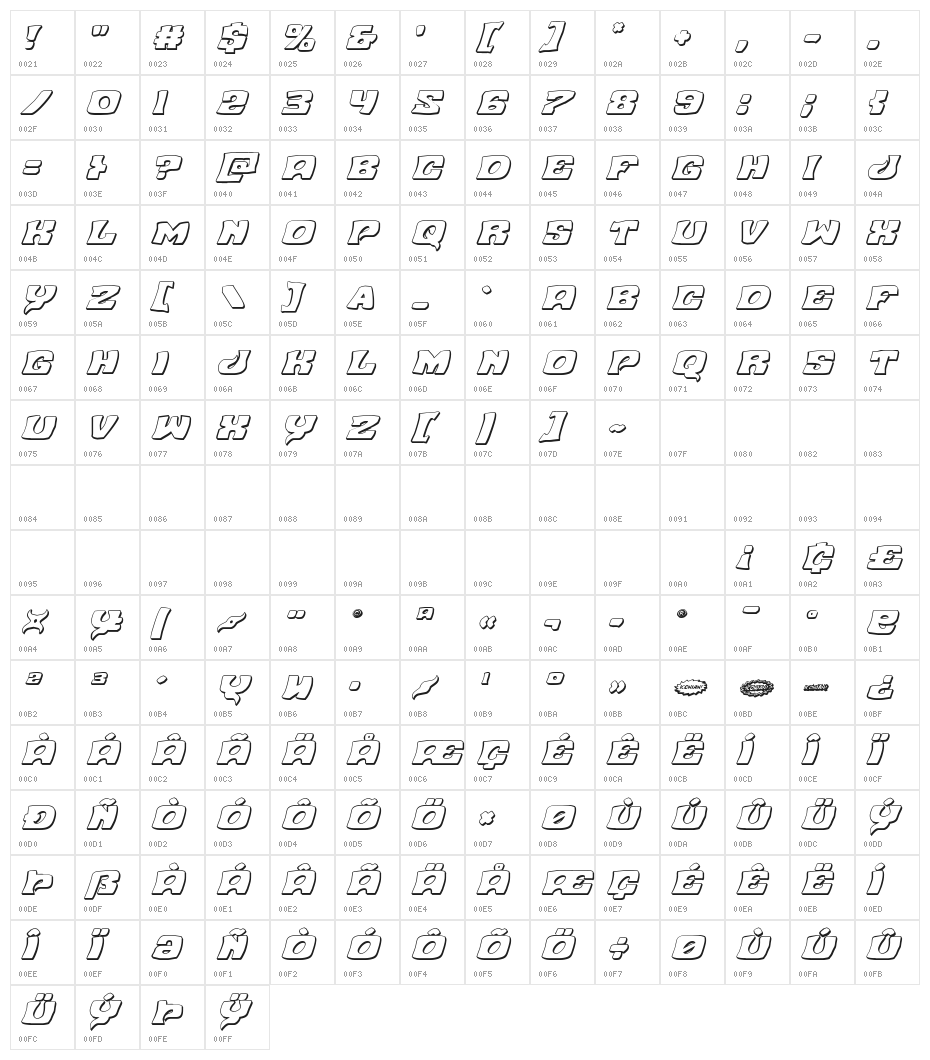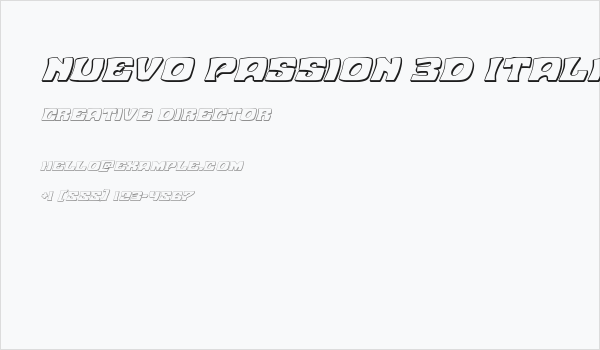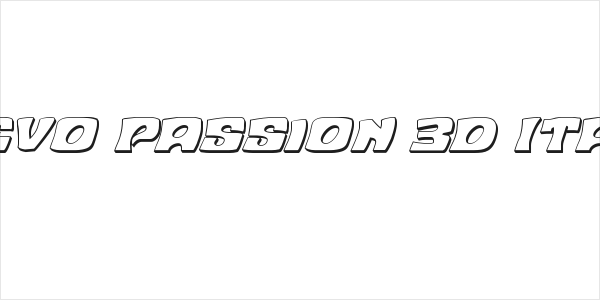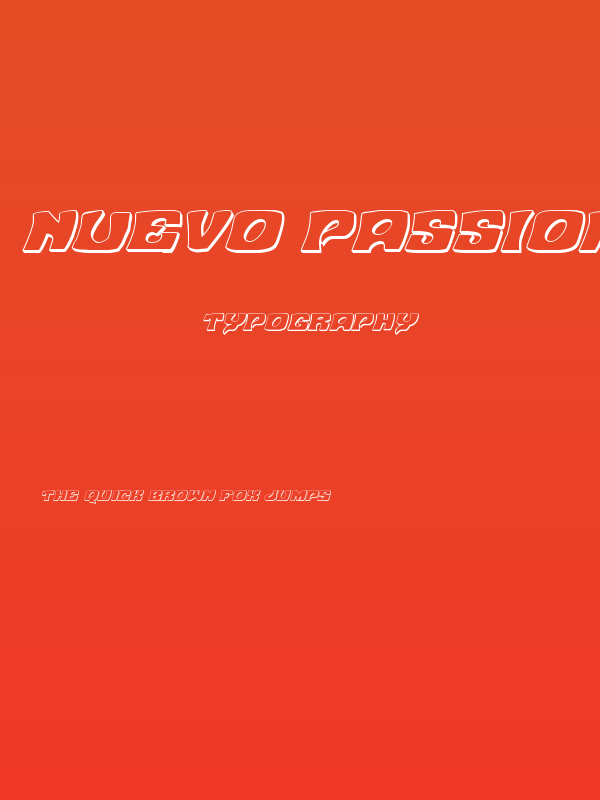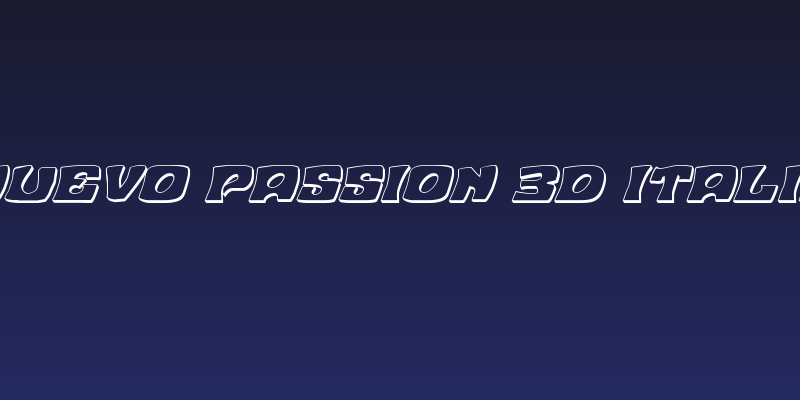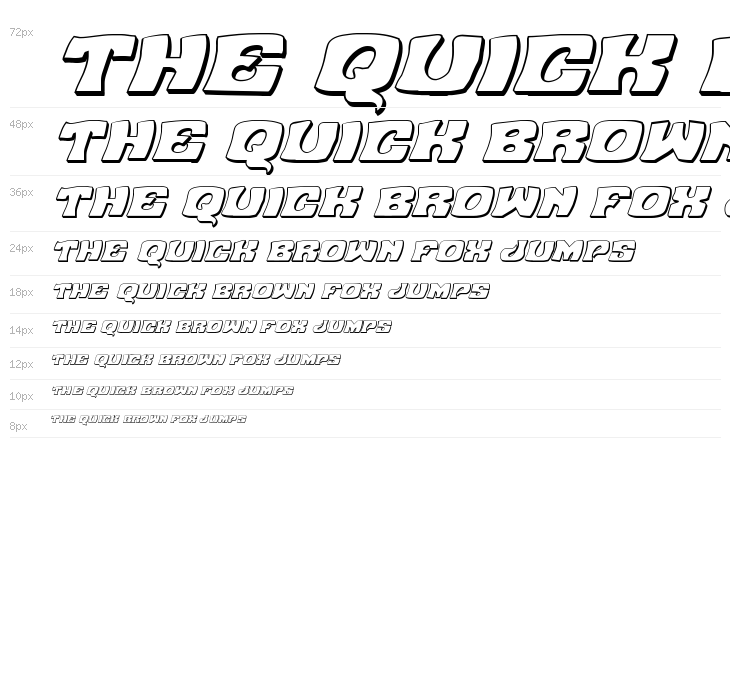
Nuevo Passion 3D Italic Font
Nuevo Passion 3D Italic Description
This font features a bold, three-dimensional appearance with a dynamic italic slant. The characters are outlined, giving them a striking and modern look. The design is playful yet structured, with a consistent thickness throughout each letterform. The uppercase and lowercase letters maintain a cohesive style, while the numerals and special characters complement the overall aesthetic. The font's 3D effect is achieved through a clever use of shading and perspective, making it ideal for eye-catching designs.
| Proposed Projects | This font is perfect for projects that require a bold statement, such as posters, logos, and headlines. Its unique style can also enhance branding materials, advertisements, and digital media. |